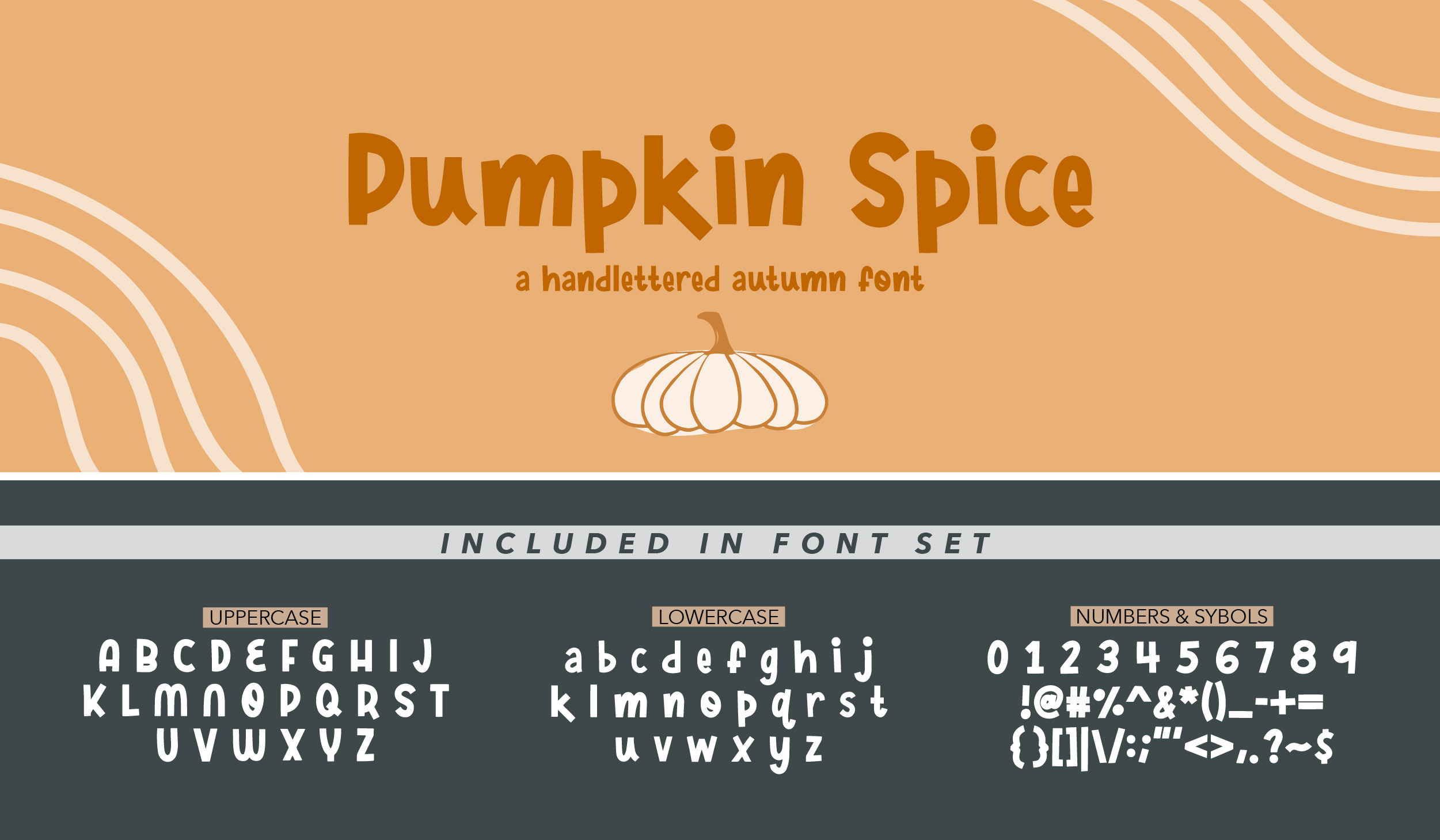
Pumpkin Spice | A Handwritten Autumn Font
Pumpkin Spice is a charming hand-lettered Autumn font...just perfect for all your cozy fall projects. I had so much fun creating it and hope you will love using it!